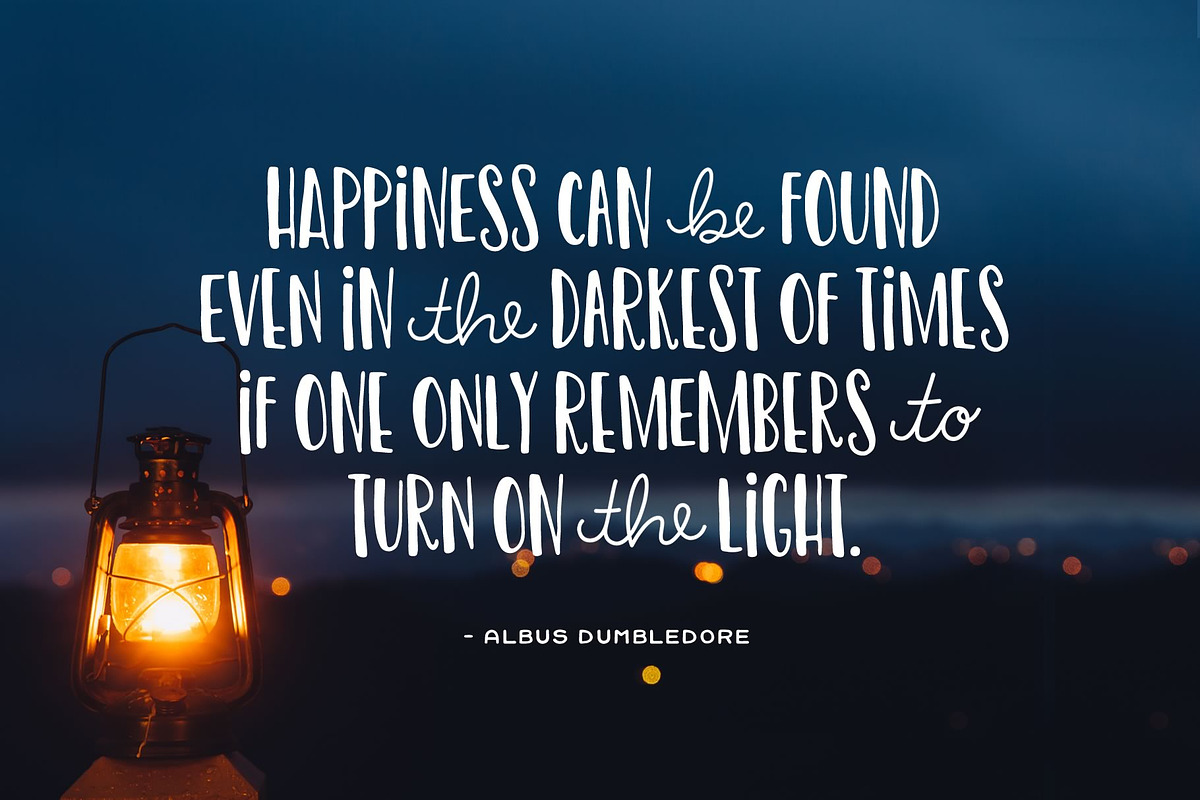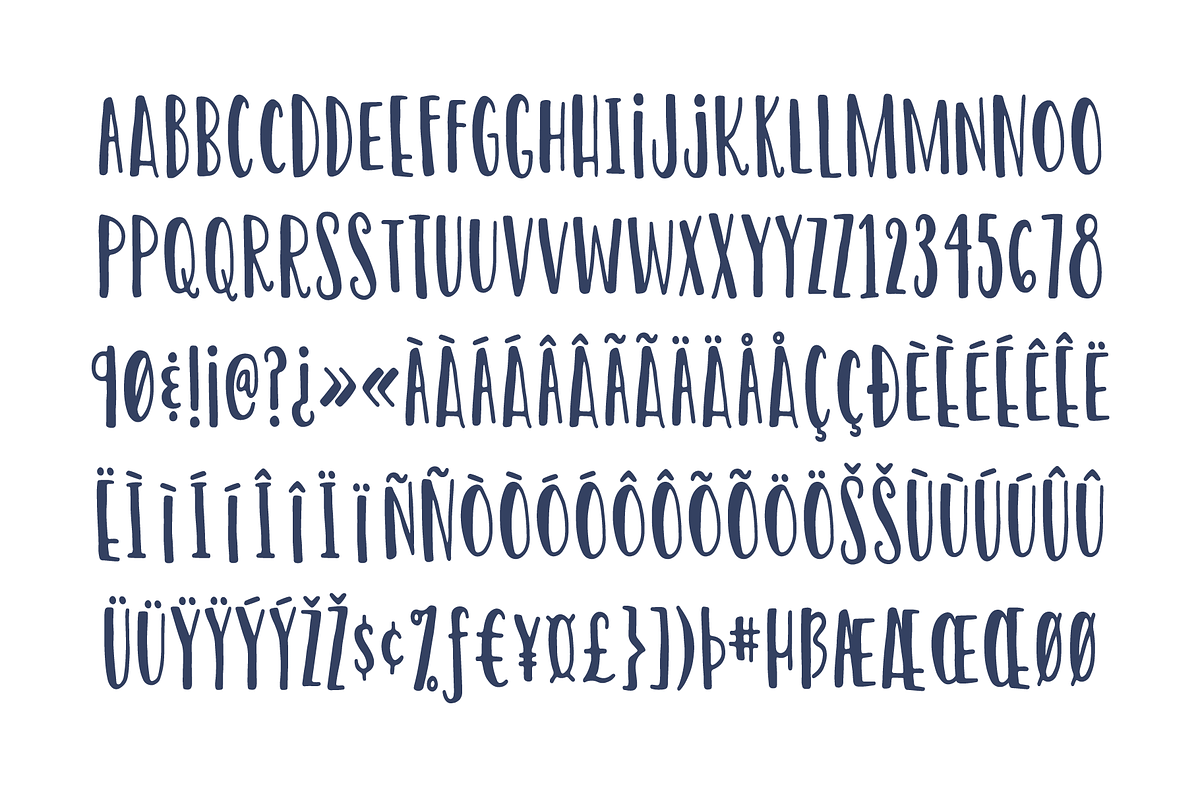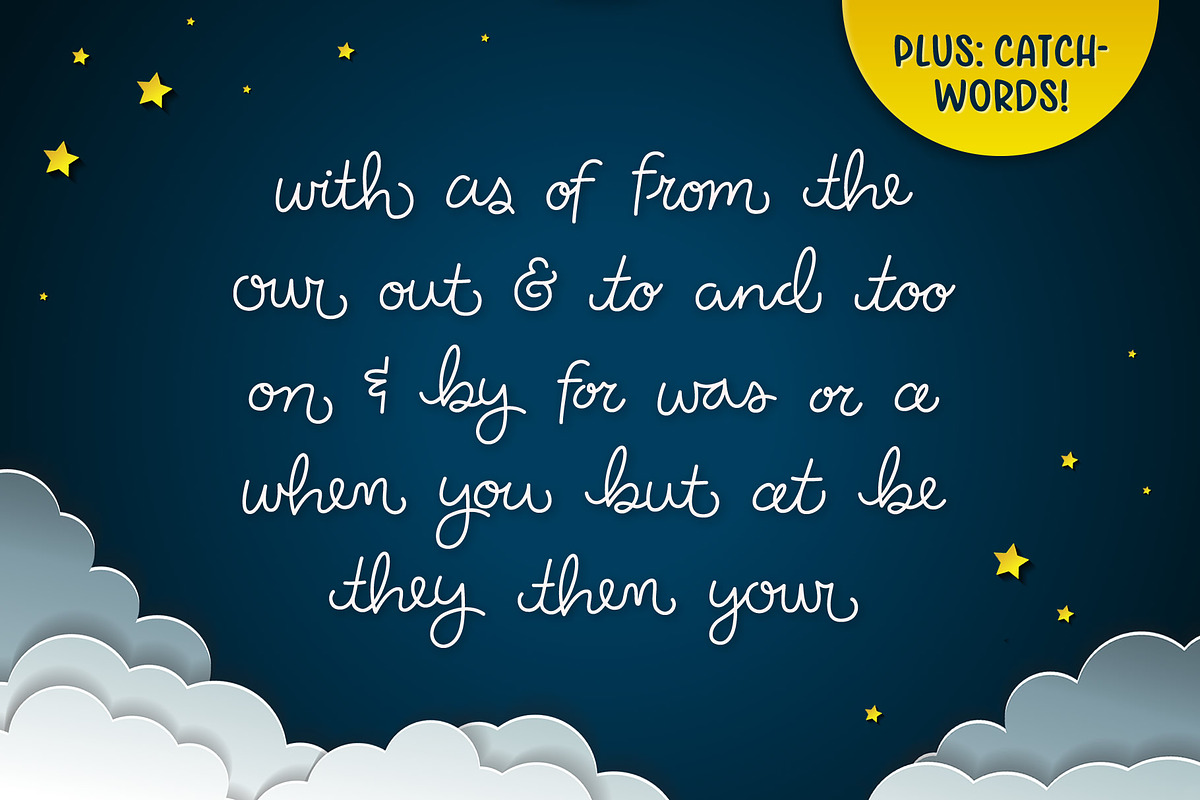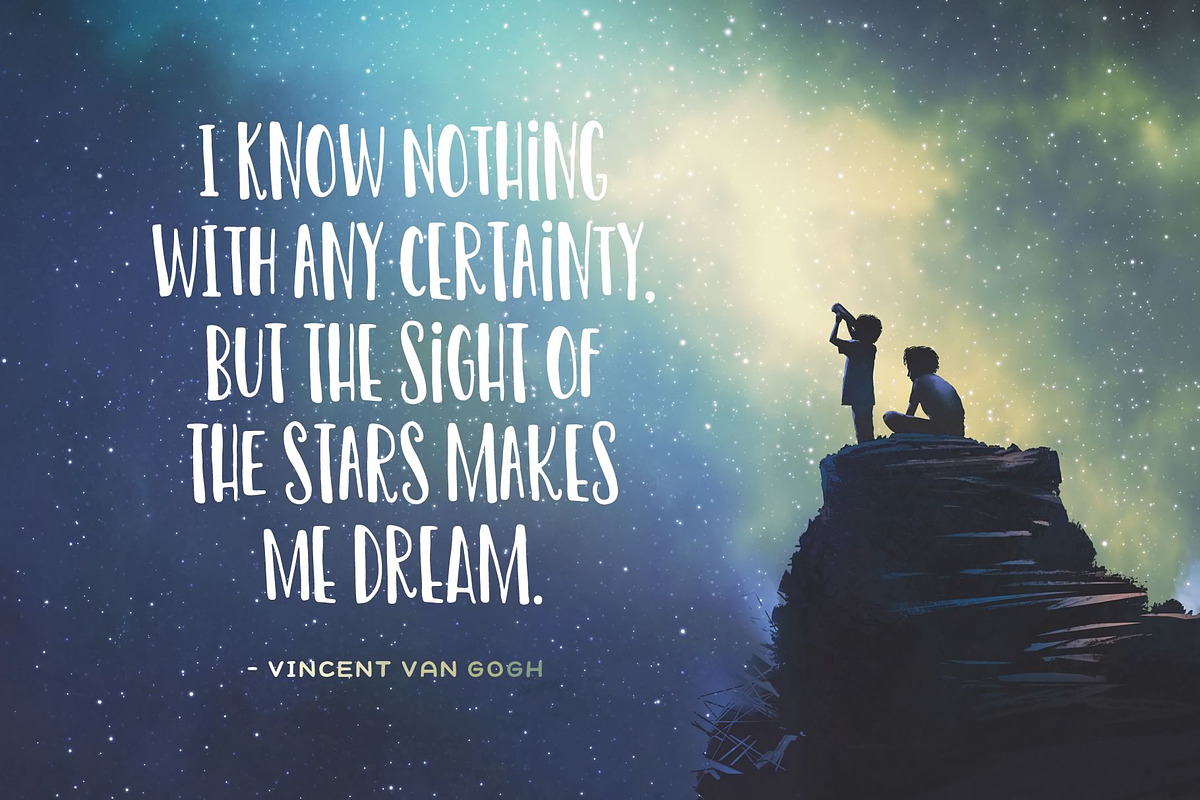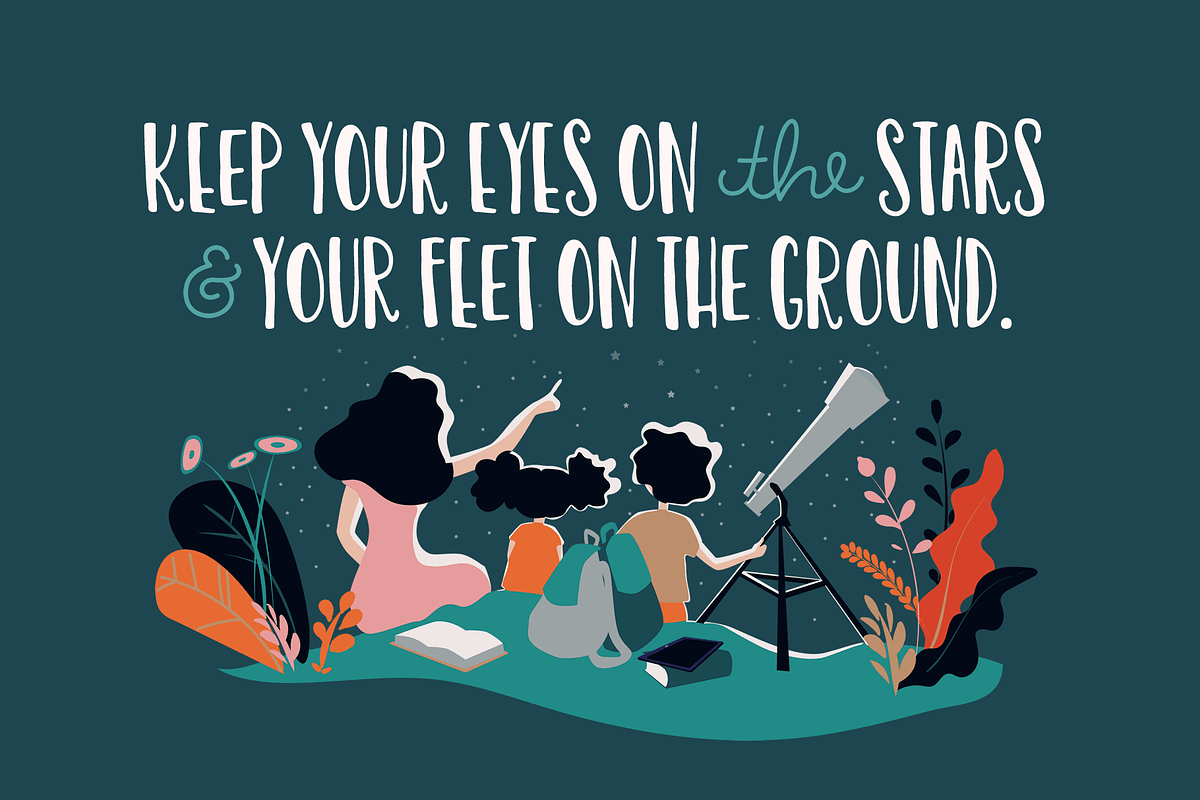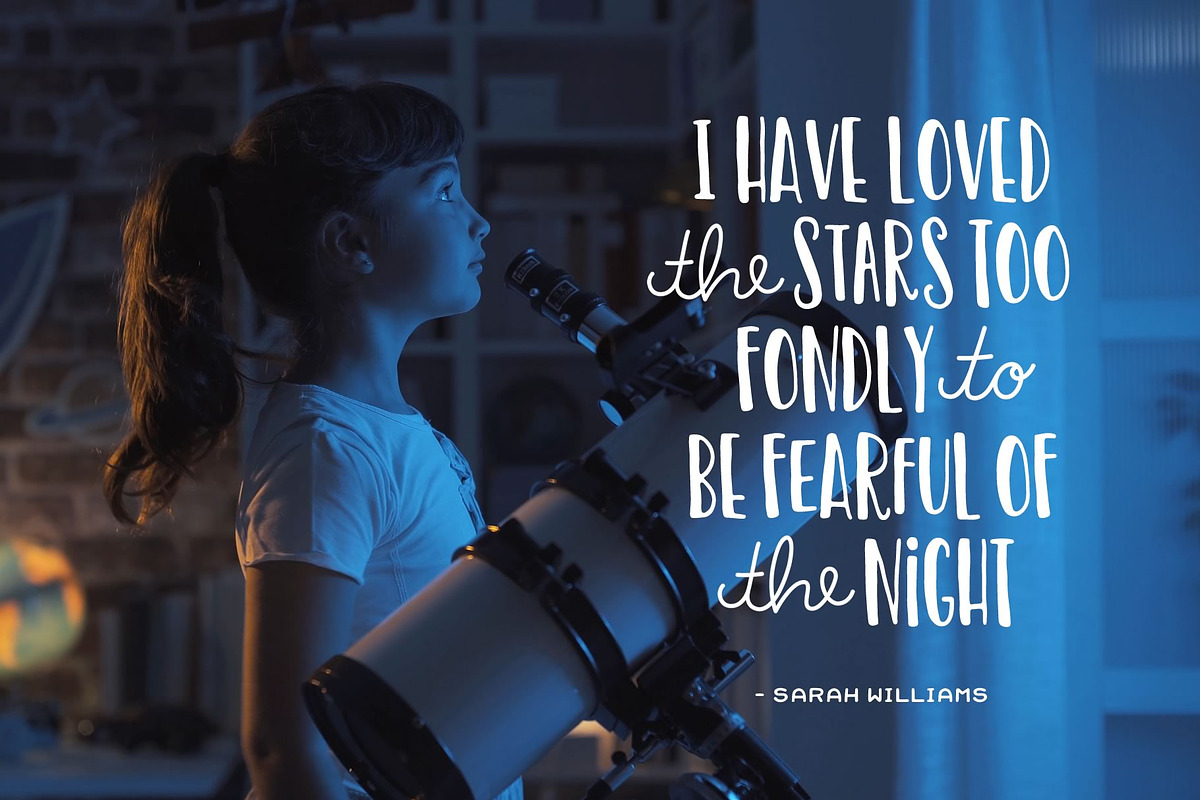
Twinkle the Star Font
Introducing: Twinkle the Star Font! A condensed, hand-drawn font that comes with a set of catchwords for creating whimsical and fun (yet readable) designs.
Twinkle the Star Font by Denise Chandler fits naturally into Branding, posters, packaging, typography.